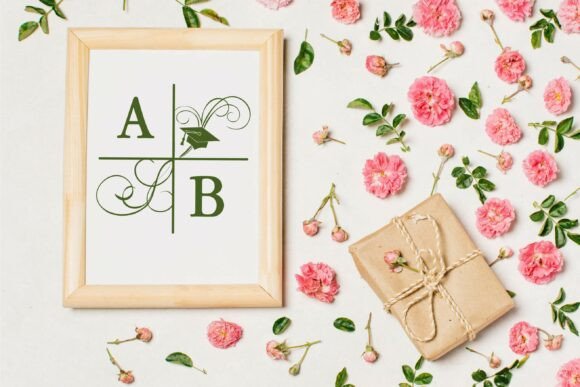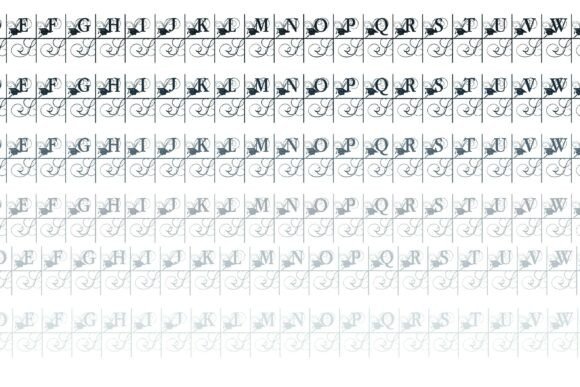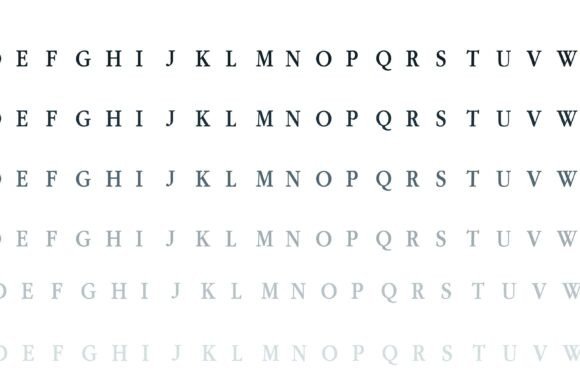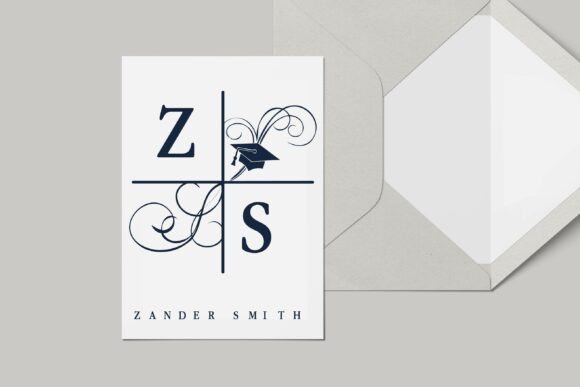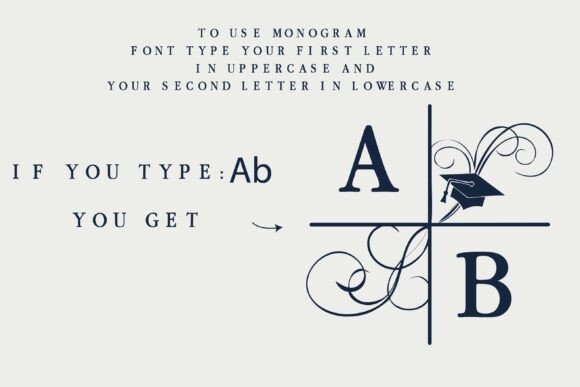
Introduction to Mortarboard Monogram Family Font Font
Fonts play a crucial role in design, and the Mortarboard Monogram Family Font font is a typeface that brings both character and versatility to any project. Whether you’re working on a branding project, a website, or a print design, the Mortarboard Monogram Family Font font offers a unique style that can elevate your work.
| 📌 Font Name | Mortarboard Monogram Family Font |
| 👤 Author | Illustration Ink |
Mortarboard Monogram – Elegant Quadrant Split Serif Font Mark academic success with the timeless elegance of Mortarboard Monogram, a premium decorative monogram typeface beautifully designed by Illustration Ink.
Moving away from the traditional horizontal split, this unique font frames your initials in an elegant, four-quadrant cross layout built on a sturdy, timeless serif structure The design features a beautifully detailed graduation mortarboard cap in the upper-right section, complemented by flowing, symmetrical calligraphic swirls in the lower-left section.
Key Features of Mortarboard Monogram Family Font Font
Why Choose Mortarboard Monogram Family Font Font?
The Mortarboard Monogram Family Font font is more than just a typeface – it’s a design tool that helps you communicate your message with style and clarity. Its unique character set and versatile design make it suitable for a wide range of applications, from elegant invitations to bold headlines.
With its carefully crafted letterforms and balanced proportions, the Mortarboard Monogram Family Font font ensures readability and visual appeal across all mediums.
What makes Mortarboard Monogram Family Font font special?
The Mortarboard Monogram Family Font font stands out with its unique design, exceptional readability, and versatility across various design applications.